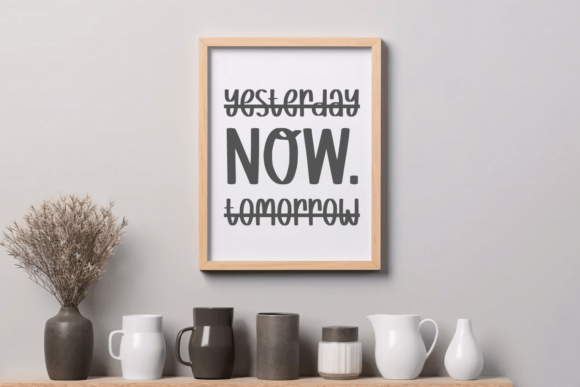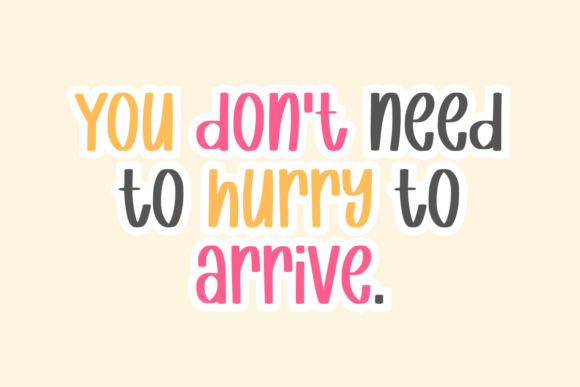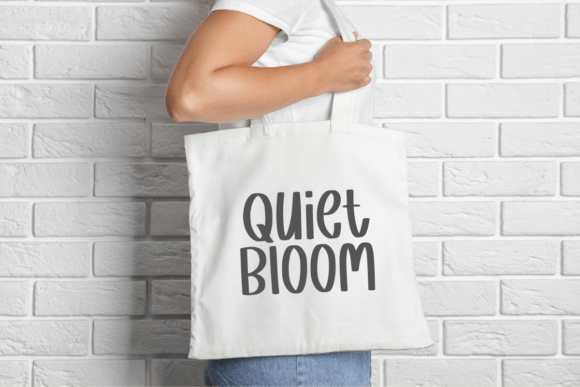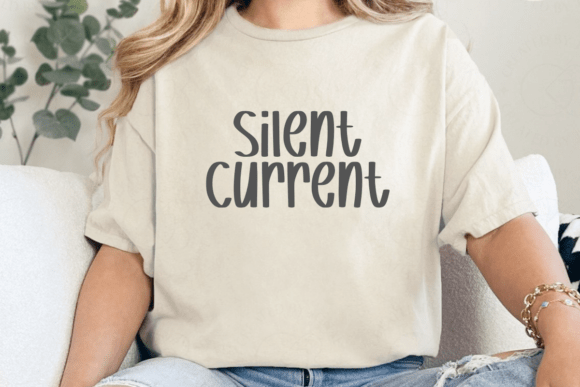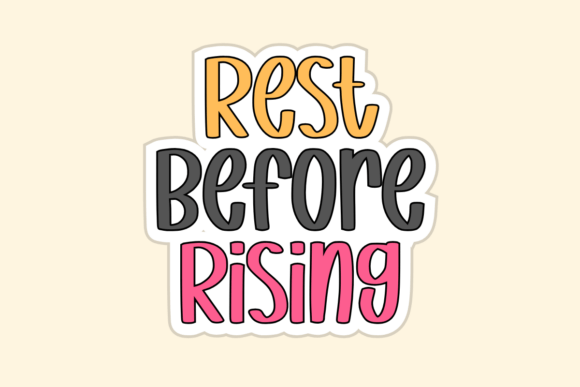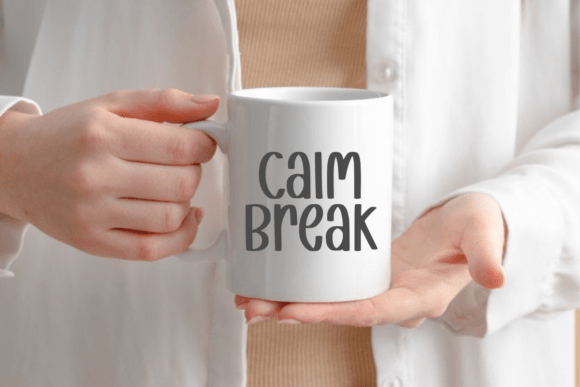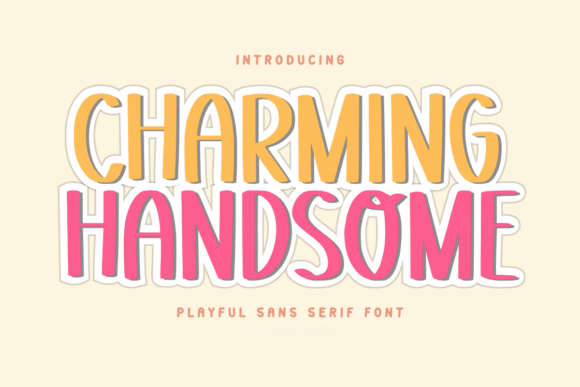
Introducing Charming Handsome Font: The Perfect Choice for Crafty Designs
Are you a designer or crafter looking for a font that adds a touch of warmth and personality to your projects? Look no further than Charming Handsome, a delightful sans serif handwriting font that’s perfect for a variety of creative endeavors. With its soft, friendly, and natural look, this font is sure to become your go-to choice for crafting beautiful and engaging designs.
The Characteristics of Charming Handsome Font
Charming Handsome is a carefully crafted font that boasts a range of characteristics that make it ideal for crafty designs. Its simple strokes and smooth curves create a fluid, handwritten look that’s both adorable and easy to read. The font’s sans serif design ensures that it’s clean and modern, while its handwriting style adds a touch of warmth and personality.
Perfect for Craft Projects
Charming Handsome is specifically designed with craft projects in mind. Whether you’re working on a DIY craft, creating planners, stickers, or kids’ worksheets, this font is the perfect choice. Its friendly and approachable style makes it perfect for classroom printables, and its smooth curves ensure that it cuts beautifully using Cricut and Silhouette machines.
Why Crafting Moms Love Charming Handsome
Crafting moms love Charming Handsome for its adorable handwritten style that’s perfect for a range of projects. From quotes and greeting cards to kids’ labels and coloring pages, this font adds a touch of warmth and personality to any design. Its ease of use and versatility make it a favorite among crafting moms who want to create beautiful and engaging projects for their kids.
Ideas for Using Charming Handsome Font
The possibilities for using Charming Handsome are endless! Here are a few ideas to get you started:
• Quotes: Use Charming Handsome to add a touch of personality to your quote designs. Perfect for social media posts, printables, or wall art.
• Greeting Cards: Create beautiful and heartfelt greeting cards for special occasions using Charming Handsome.
• Kids’ Labels: Add a touch of fun and personality to kids’ labels, stickers, and worksheets using Charming Handsome.
• Coloring Pages: Create engaging and interactive coloring pages for kids using Charming Handsome.
• Worksheets: Use Charming Handsome to create fun and educational worksheets for kids.
• Bullet Journals: Add a touch of personality to your bullet journals using Charming Handsome.
• Scrapbooks: Use Charming Handsome to create beautiful and memorable scrapbook pages.
• Playful Graphic Projects: Perfect for creating playful and engaging graphic projects, such as posters, flyers, and brochures.
Tips for Using Charming Handsome Font
Here are a few tips for getting the most out of Charming Handsome:
• Experiment with different colors and textures to add depth and interest to your designs.
• Use Charming Handsome in combination with other fonts to create visually appealing and engaging designs.
• Don’t be afraid to get creative and try new things – Charming Handsome is a versatile font that’s perfect for experimenting with different design styles.
Charming Handsome is a delightful sans serif handwriting font that’s perfect for crafty designs. With its soft, friendly, and natural look, this font is sure to become your go-to choice for a range of creative projects. Whether you’re a designer or crafter, Charming Handsome is the perfect choice for adding a touch of warmth and personality to your designs. So why wait? Download Charming Handsome today and start creating beautiful and engaging designs that will delight and inspire your audience!